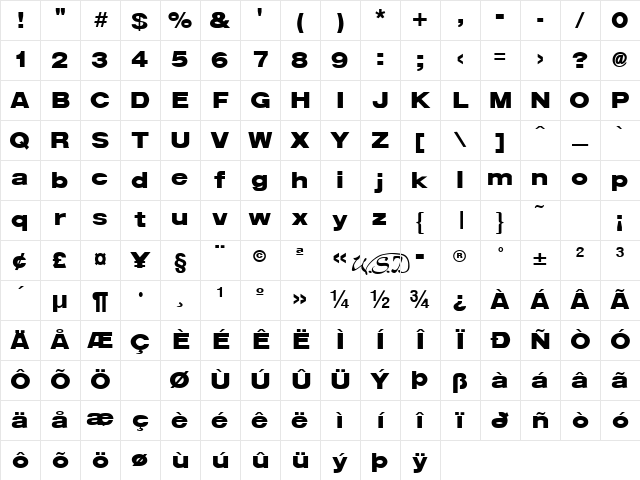
Arena Black Extended Regular
Design Context for Arena Black Extended
Arena Black Extended is a composed and adaptable typeface that performs quietly and consistently across a wide range of design contexts.
Pro Tip: Use Arena Black Extended in both headline and body roles to test its range before committing to a single application.